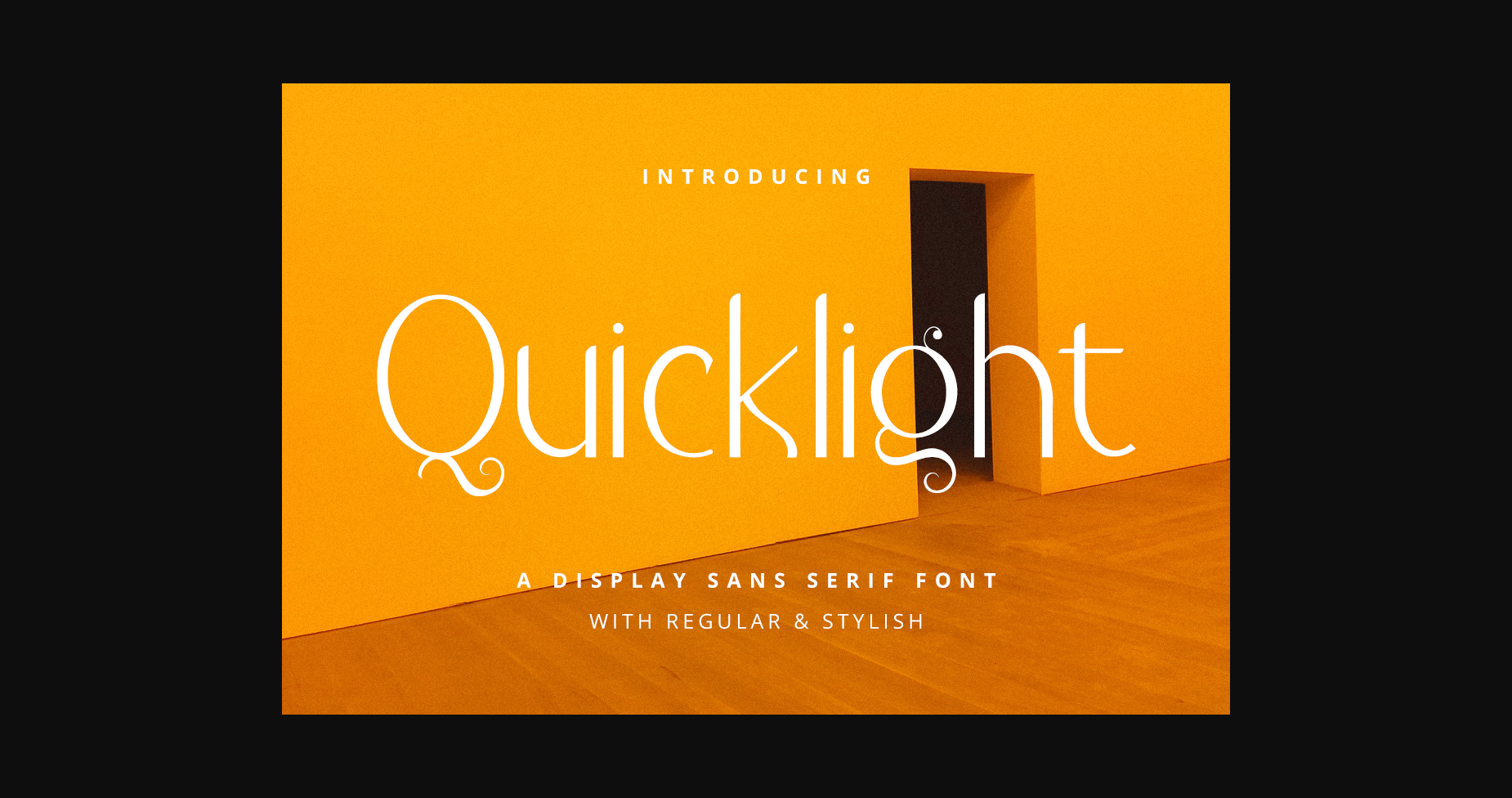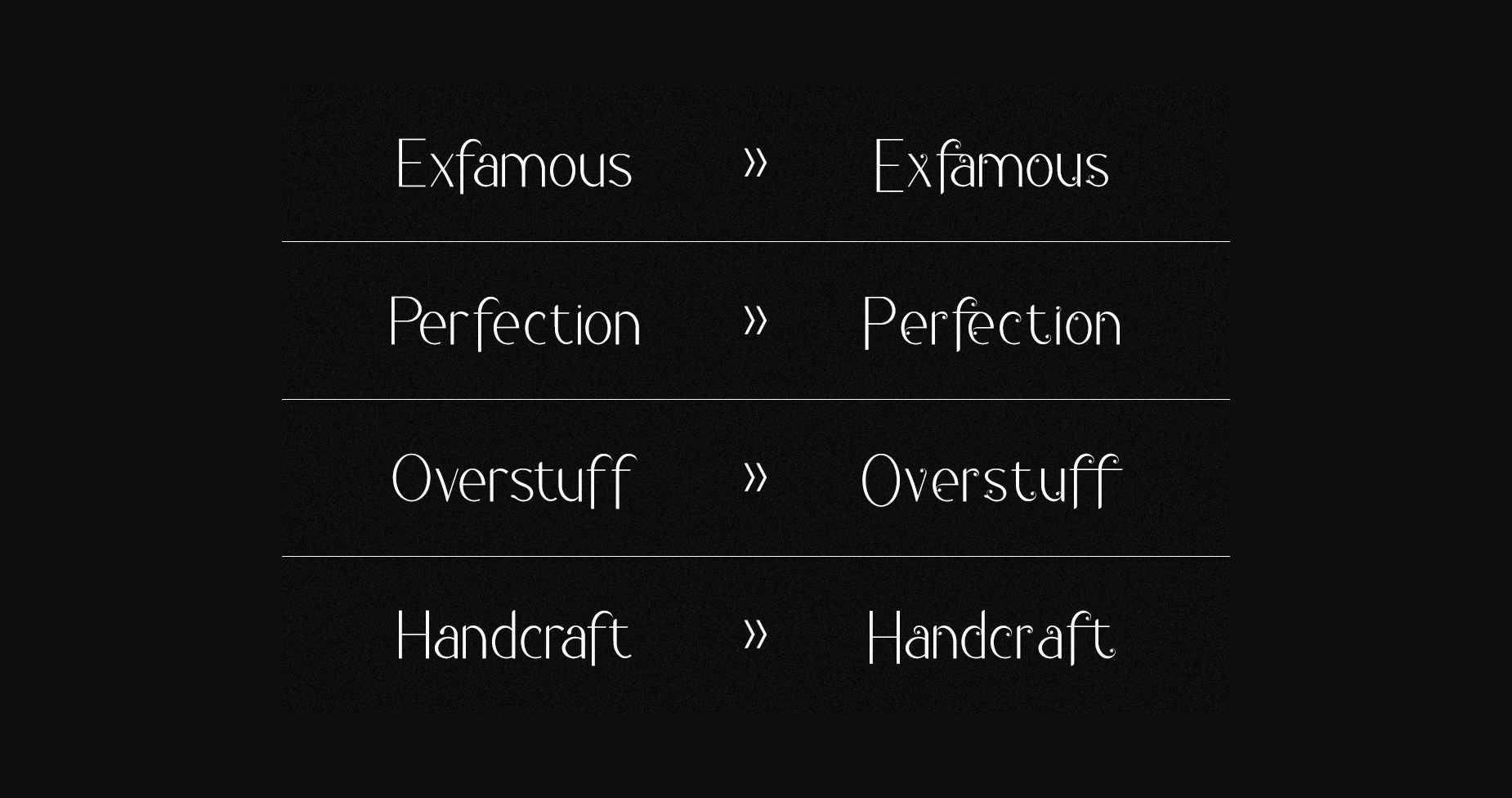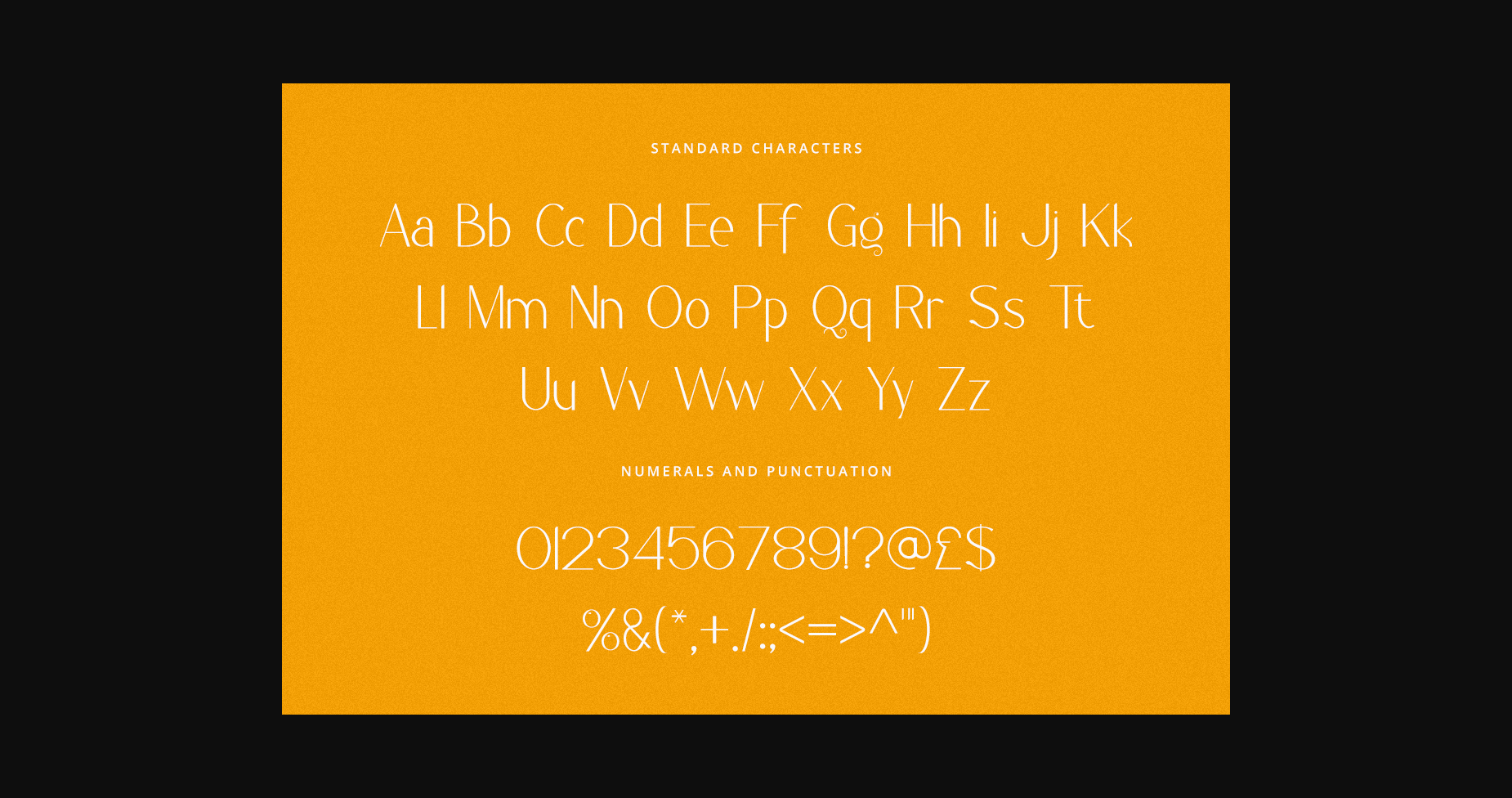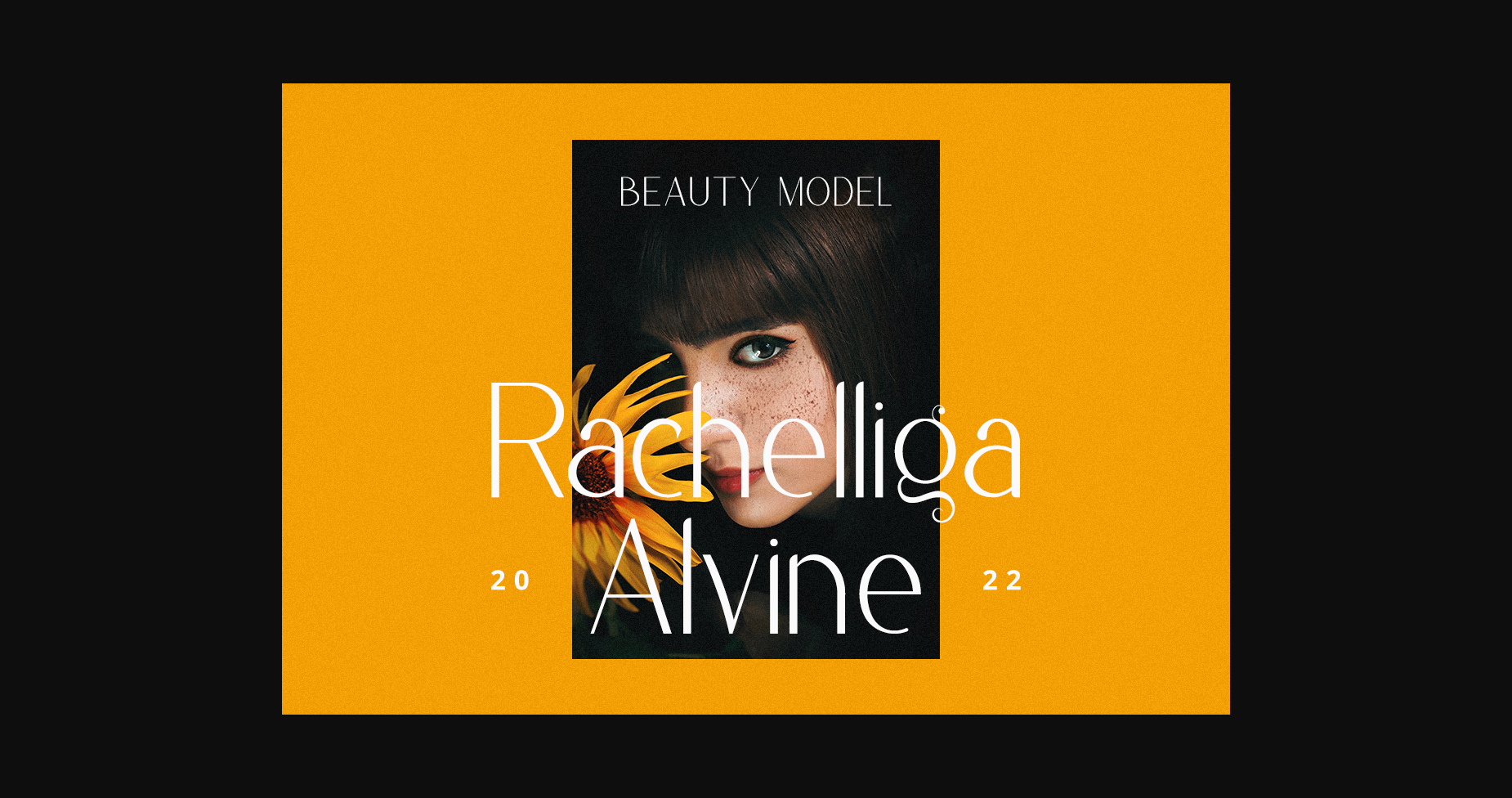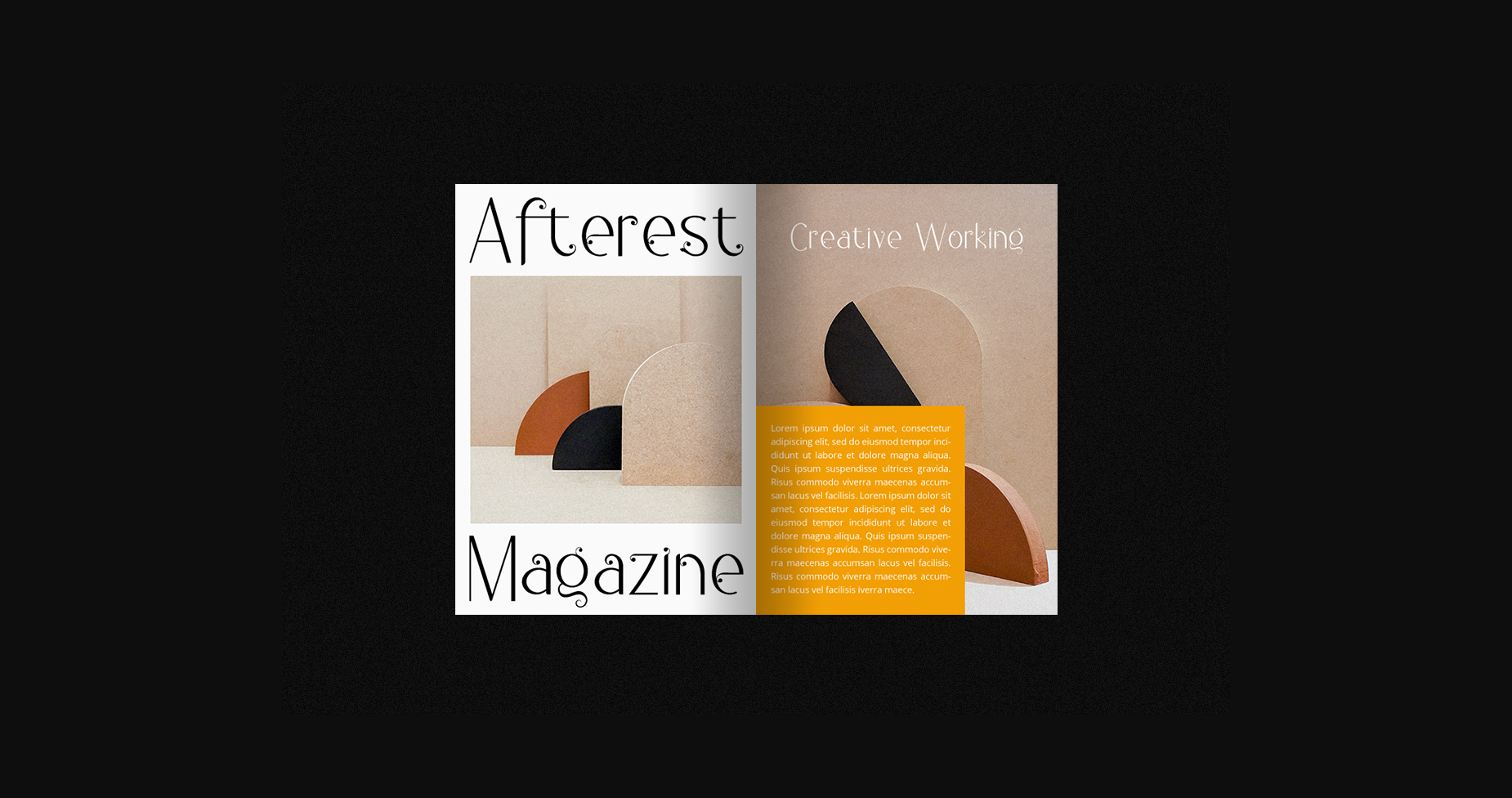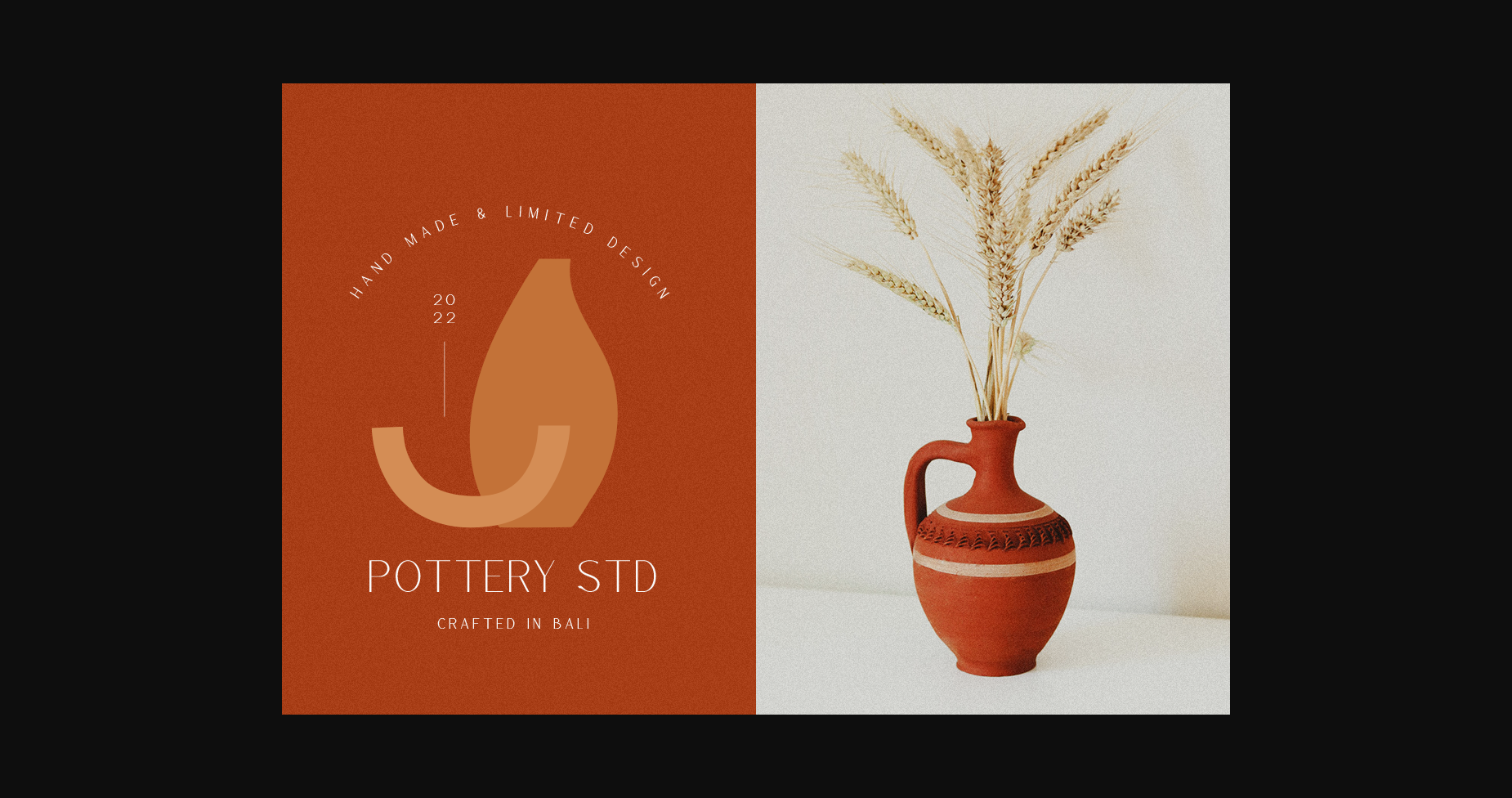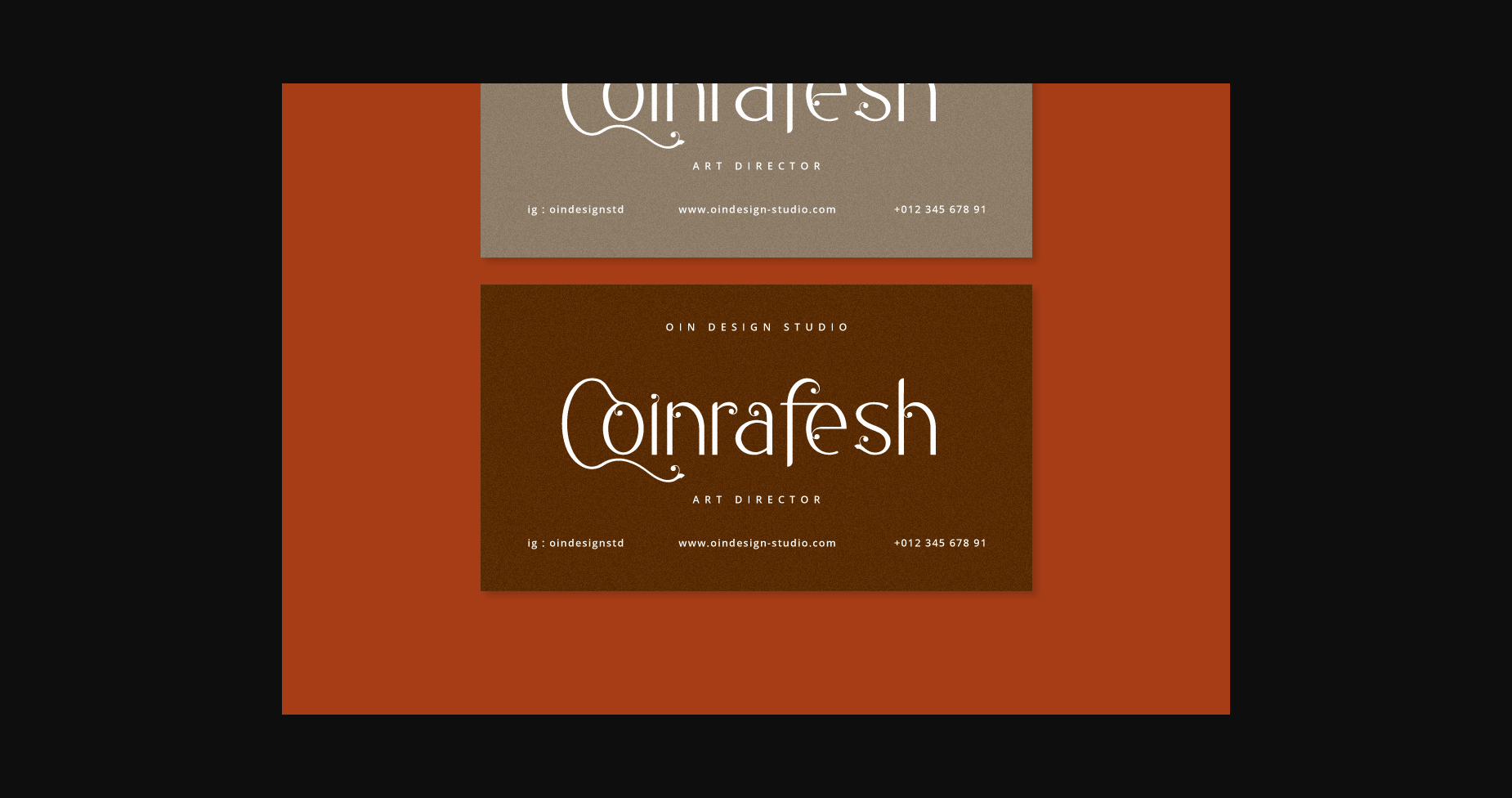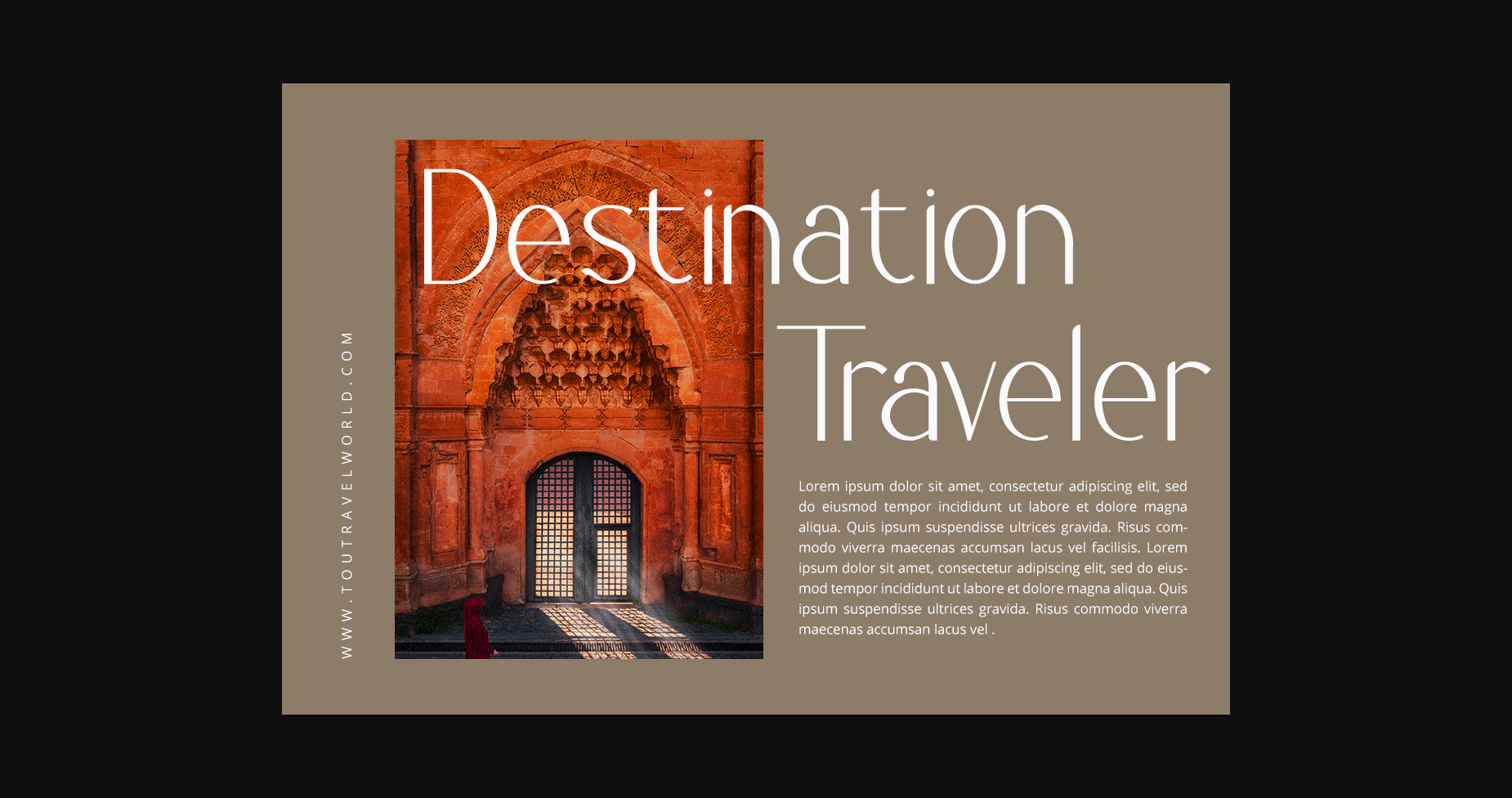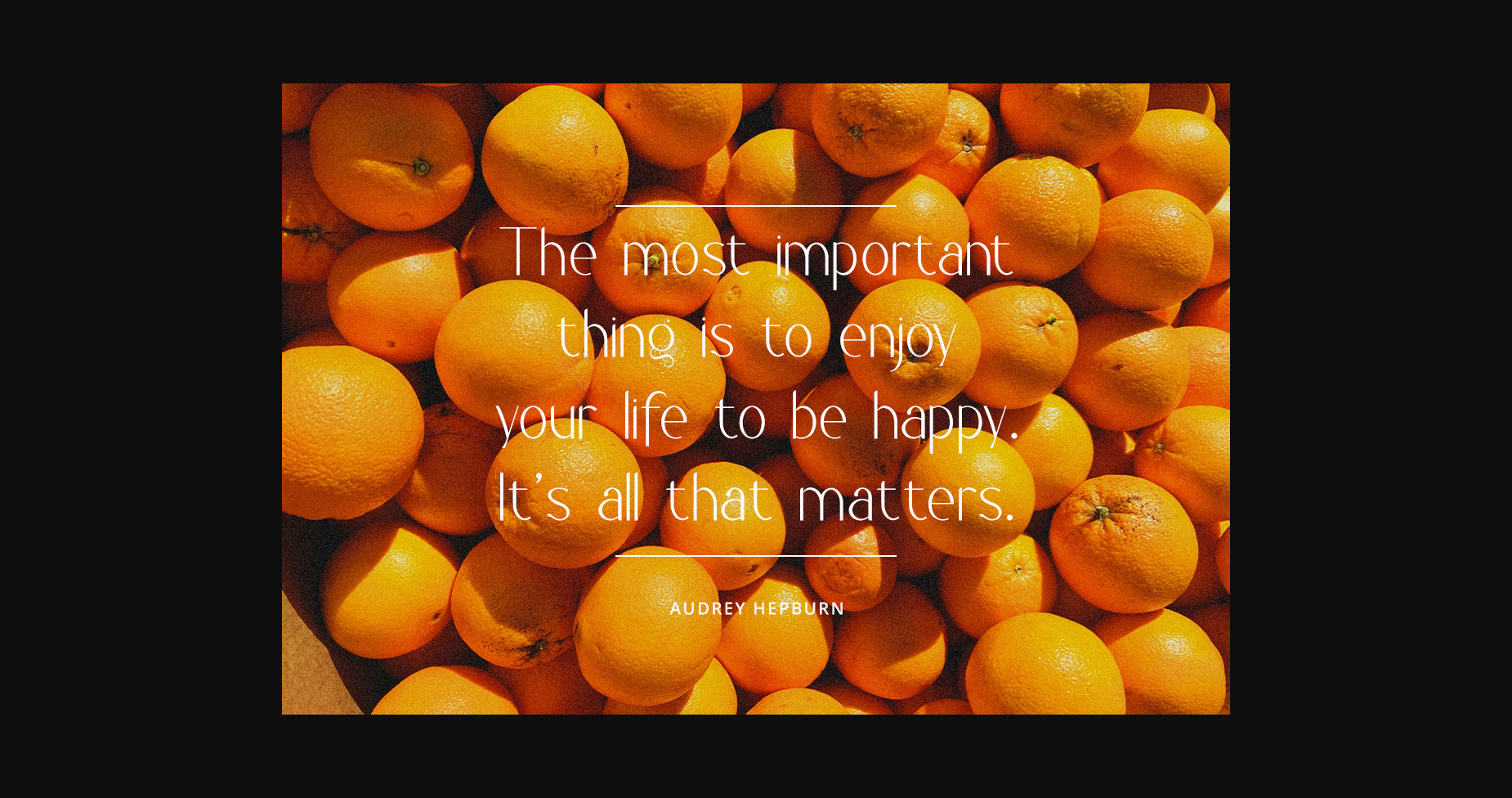
Quicklight Font
About Quicklight Font
Quicklight is a stylish and clean sans serif font. It has an elegant and modern look that can be used for logos, branding, invitations, stationery, wedding designs, social media posts, and much more! This font is PUA encoded which means you can access all glyphs and swashes with ease!